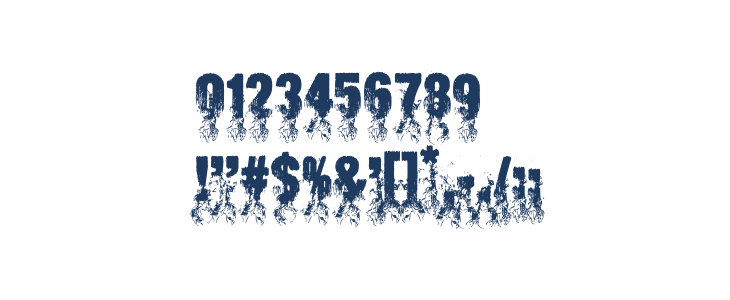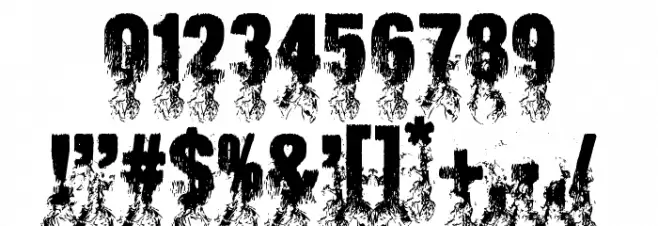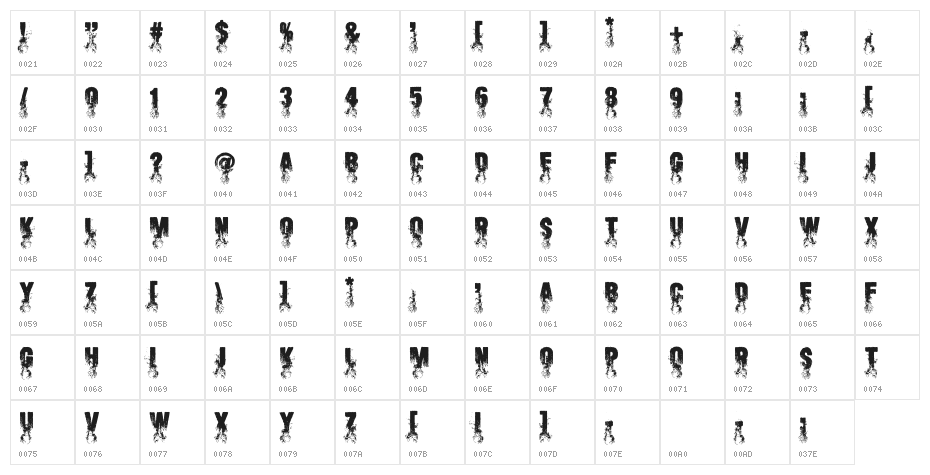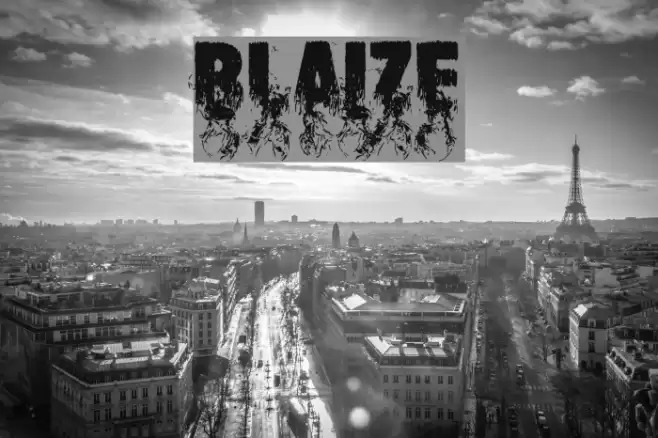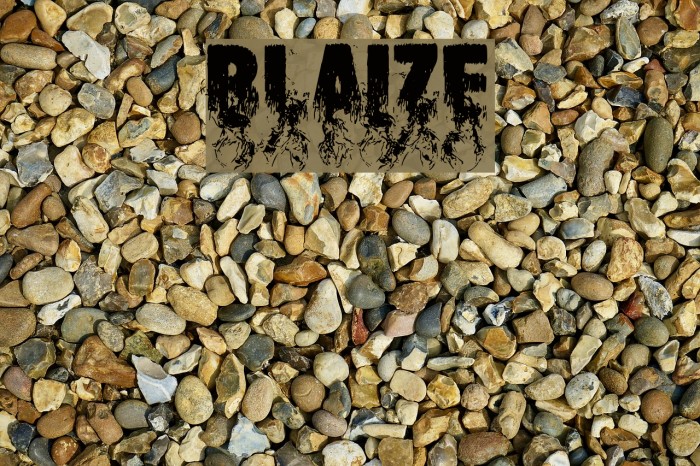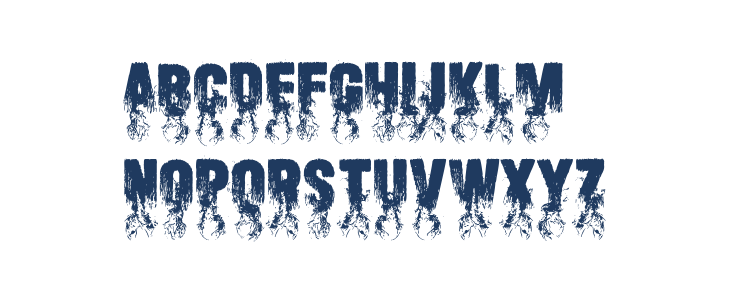
Blaize Font
Blaize Description
This font exhibits a bold and distressed style, characterized by its rough, textured appearance that resembles flames or smoke rising from the base of each character. The uppercase and lowercase letters, along with numbers and special characters, maintain a consistent design theme, making it highly decorative and eye-catching. The font's unique aesthetic is perfect for creating a dramatic impact, with each character appearing as if it is being consumed by fire. This design choice makes it suitable for projects that require a strong visual statement, such as posters, album covers, or themed event invitations. The font's heavy weight and high contrast between the filled and distressed areas contribute to its striking presence.
| Proposed Projects | Ideal for posters, album covers, themed events, and dramatic visual statements. |